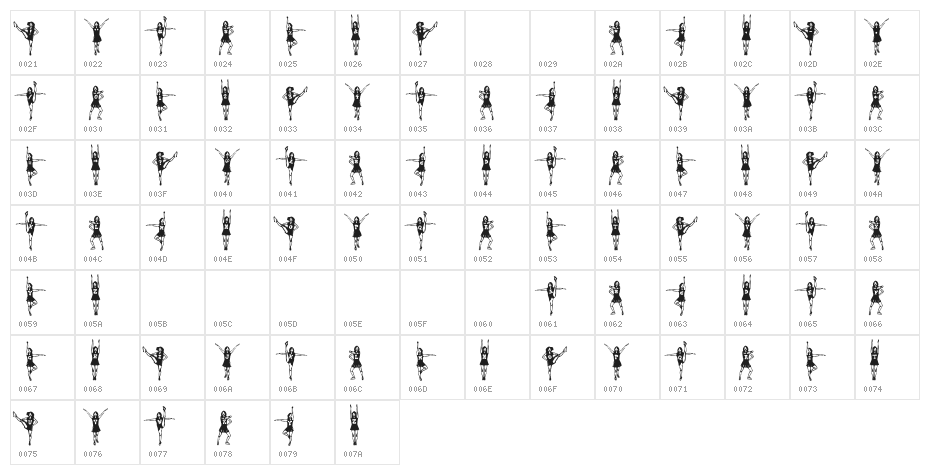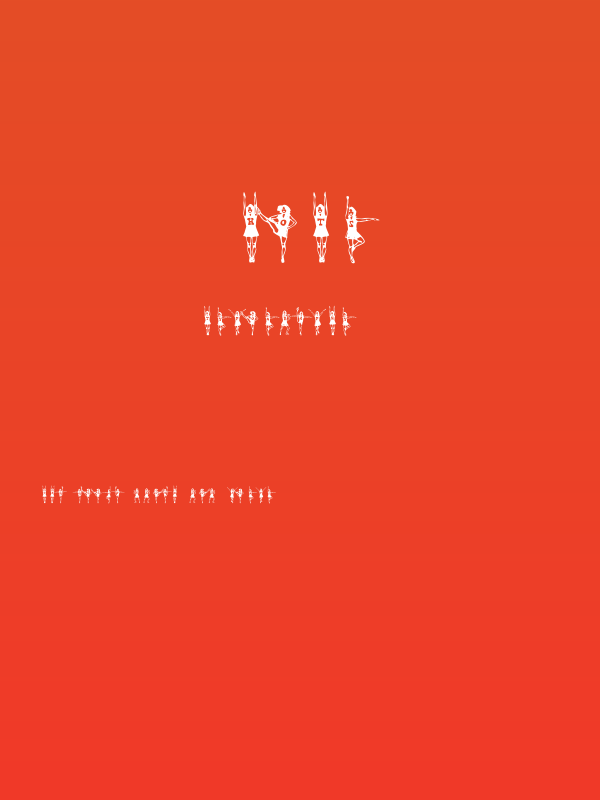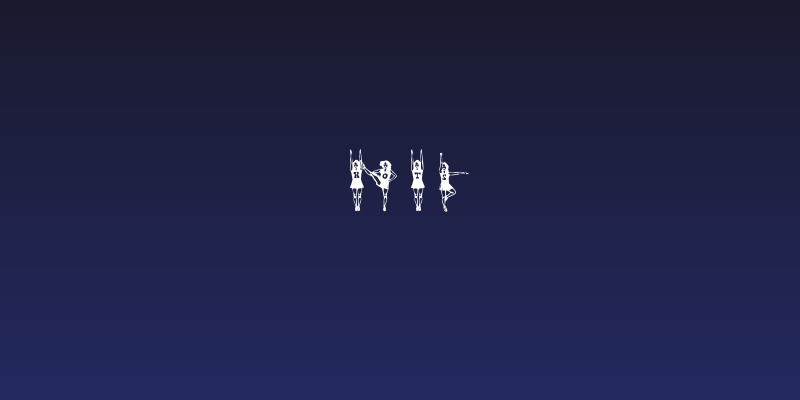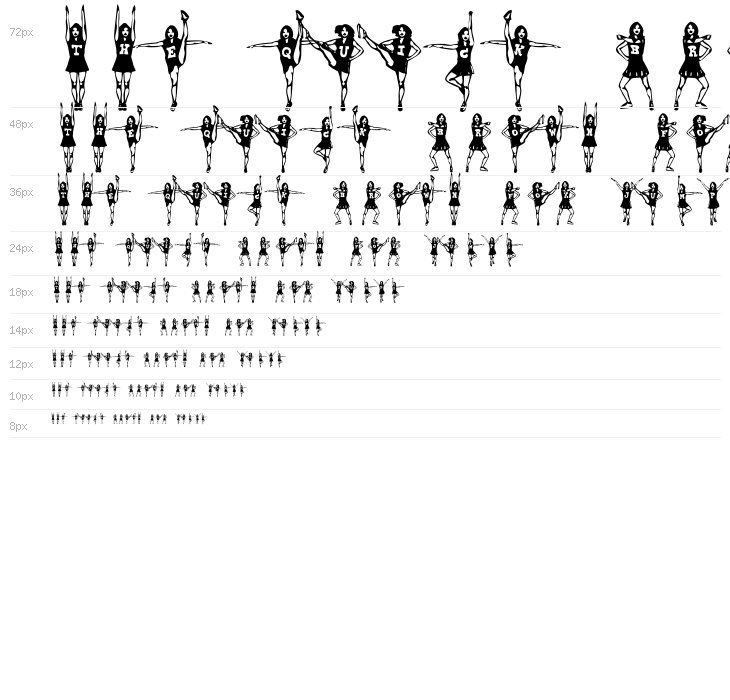
Hots Font
Hots Description
This unique font features characters formed by dancers in various poses, each letter and number creatively integrated into the silhouette of a dancer. The design is playful and artistic, capturing a sense of movement and energy. The characters are bold and distinct, making them stand out in any design. The font is decorative and best suited for projects that aim to convey a sense of fun and creativity. It is not suitable for body text due to its intricate design but works well for headlines or artistic displays.
| Overall Style | Artistic and playful |
| Use Case | Headlines, Logos, Artistic displays |
| Proposed Projects | Ideal for dance studio logos, event posters, artistic projects, and creative branding materials. |